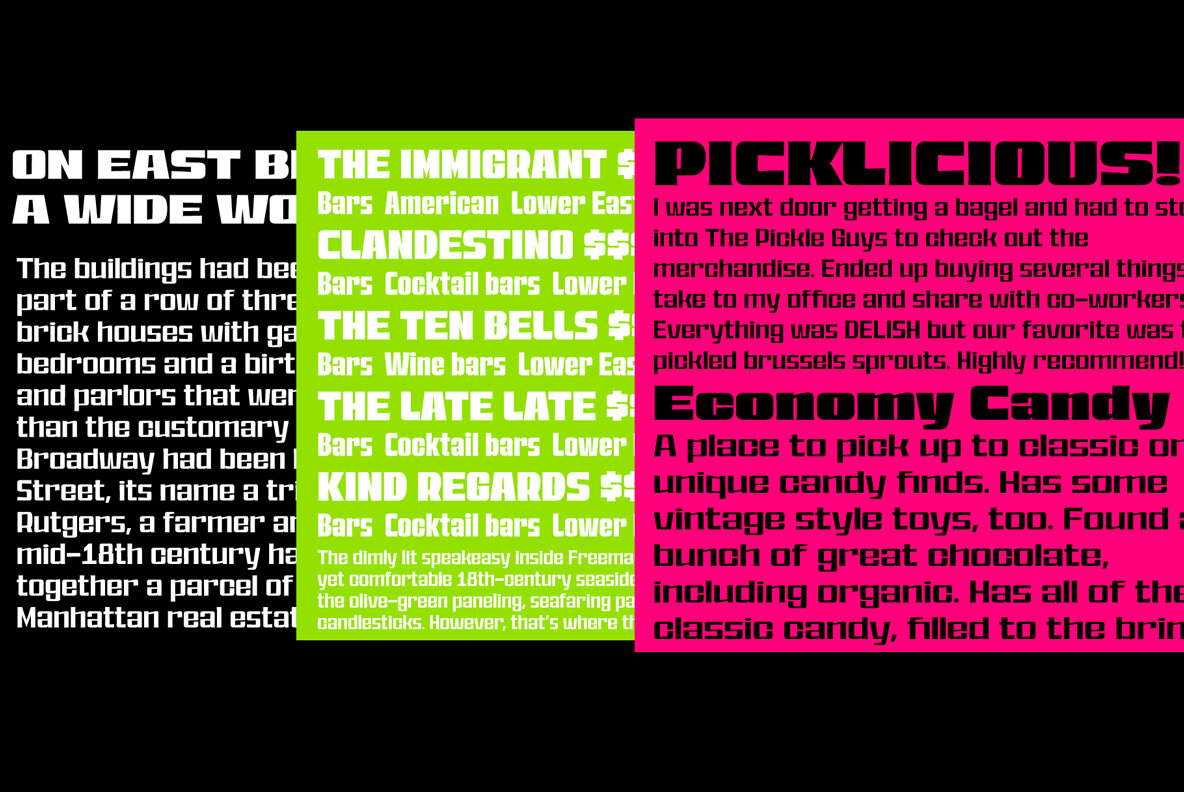
East Broadway 1
A vernacular type in NYC. The East Broadway typography has its origin in vinyl cut letters found in the Lower East Side neighborhood, from the East Broadway subway station to 13th Street and 1st Avenue in New York. A clash between an improvised craft to elaborate fast and saving signs with a 40 weights type family + 1 variable font with weight and width axes, everything you need to make any word fit in your layout.